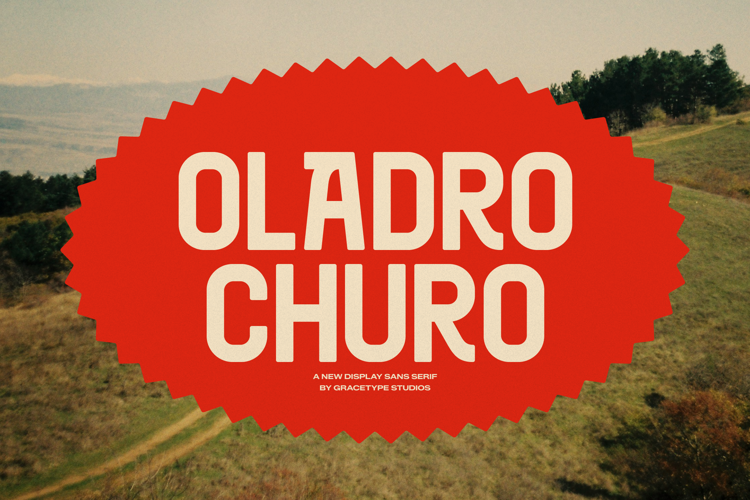
Oladro Churo Font
Oladro Churo | Display Sans Serif, is suitable for any projects such as: logos, branding projects, homeware designs, product packaging, mugs, quotes, posters, shopping bags, t-shirts, book covers, name card, invitation cards, greeting cards, label, photography, watermark, special events, and all your other lovely projects that need a Sans Serif taste.